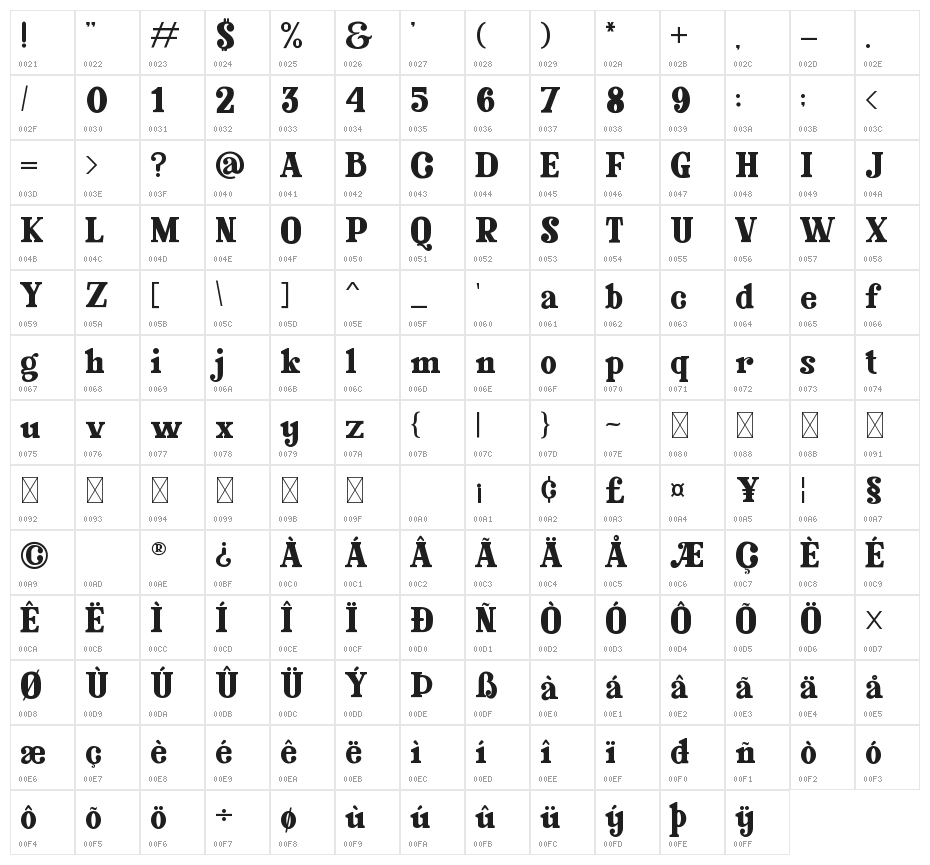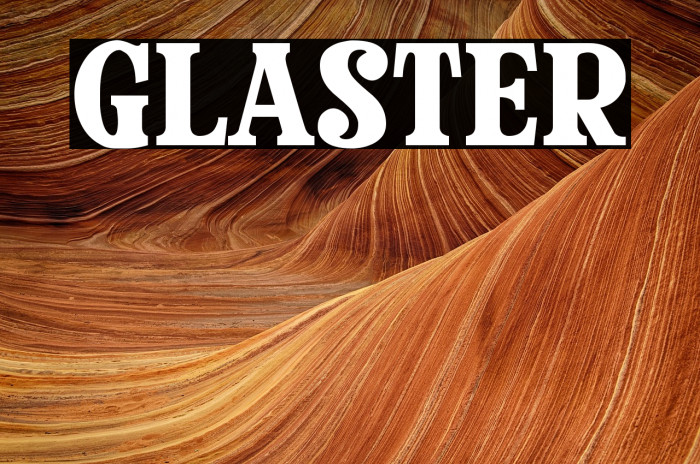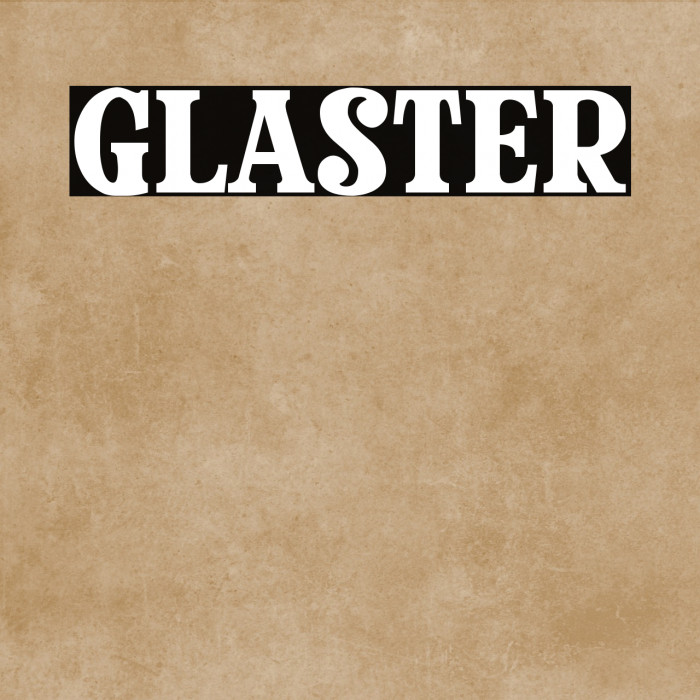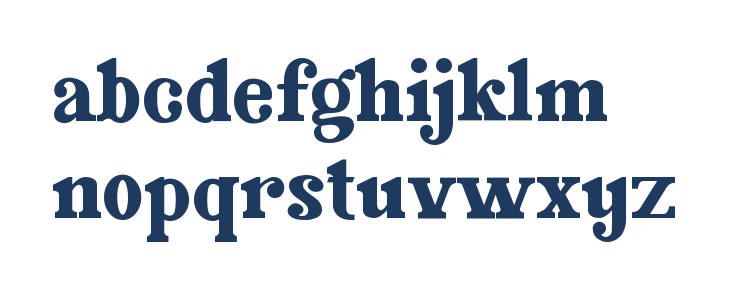
GLASTER Font
GLASTER Description
This font exhibits a bold and robust serif style, characterized by thick, prominent strokes and a strong presence. The uppercase letters are particularly striking, with a commanding appearance that is both classic and authoritative. The lowercase letters maintain the same boldness, ensuring consistency throughout the typeface. Numbers and special characters are equally bold, providing a cohesive look across all elements. The serifs are pronounced, adding a touch of elegance and tradition to the overall design. This font is well-suited for projects that require a strong visual impact, such as headlines, posters, and branding materials.
| Proposed Projects | Ideal for headlines, posters, branding, and any project needing a strong visual impact. |